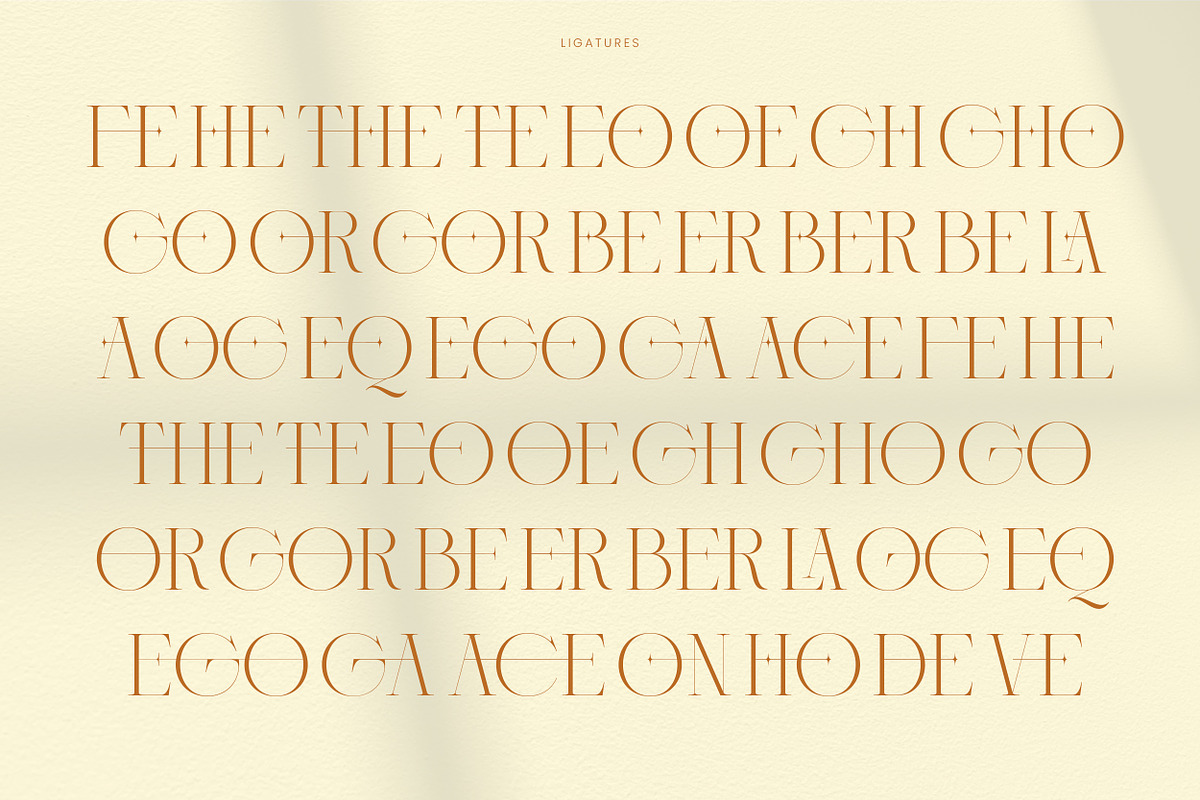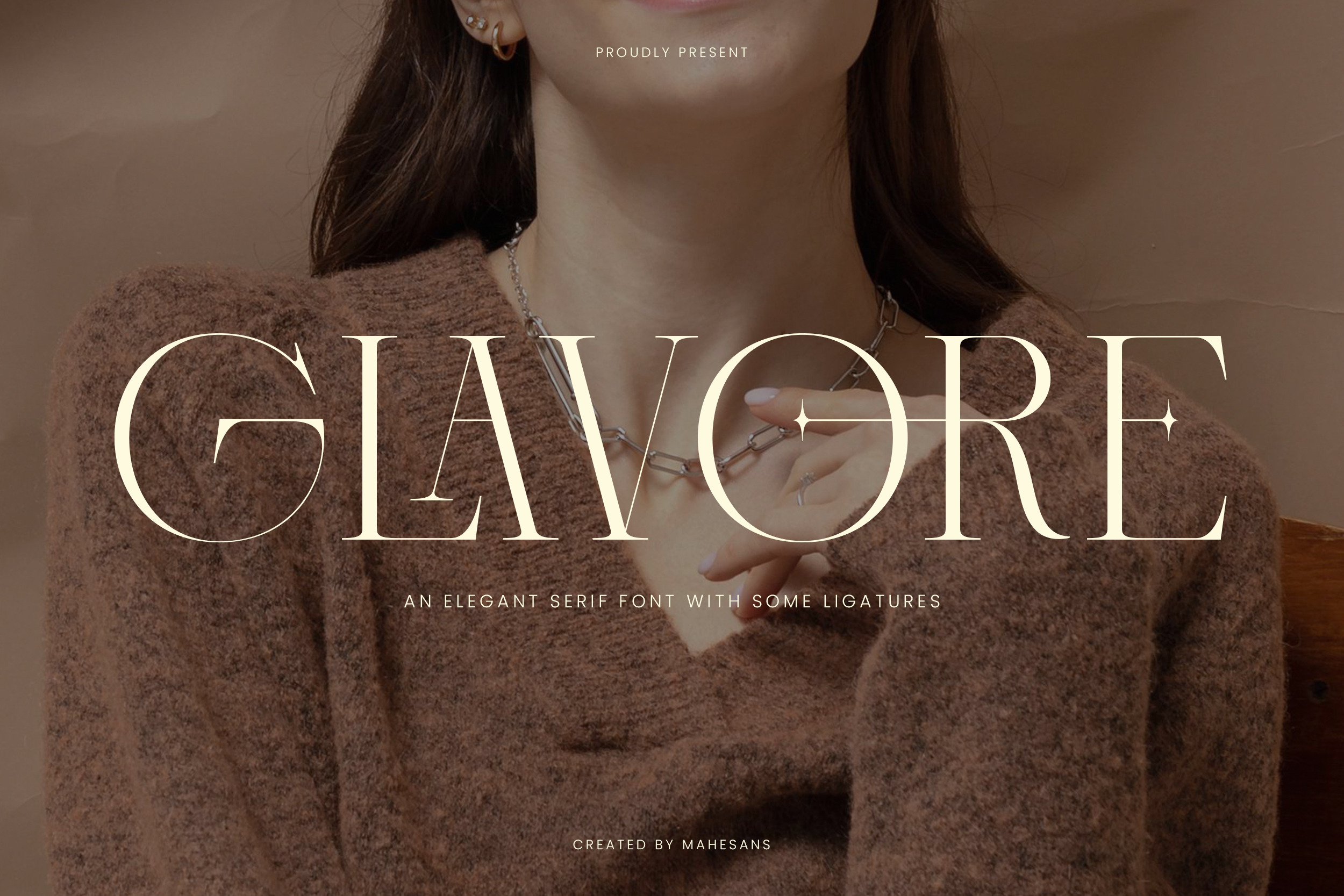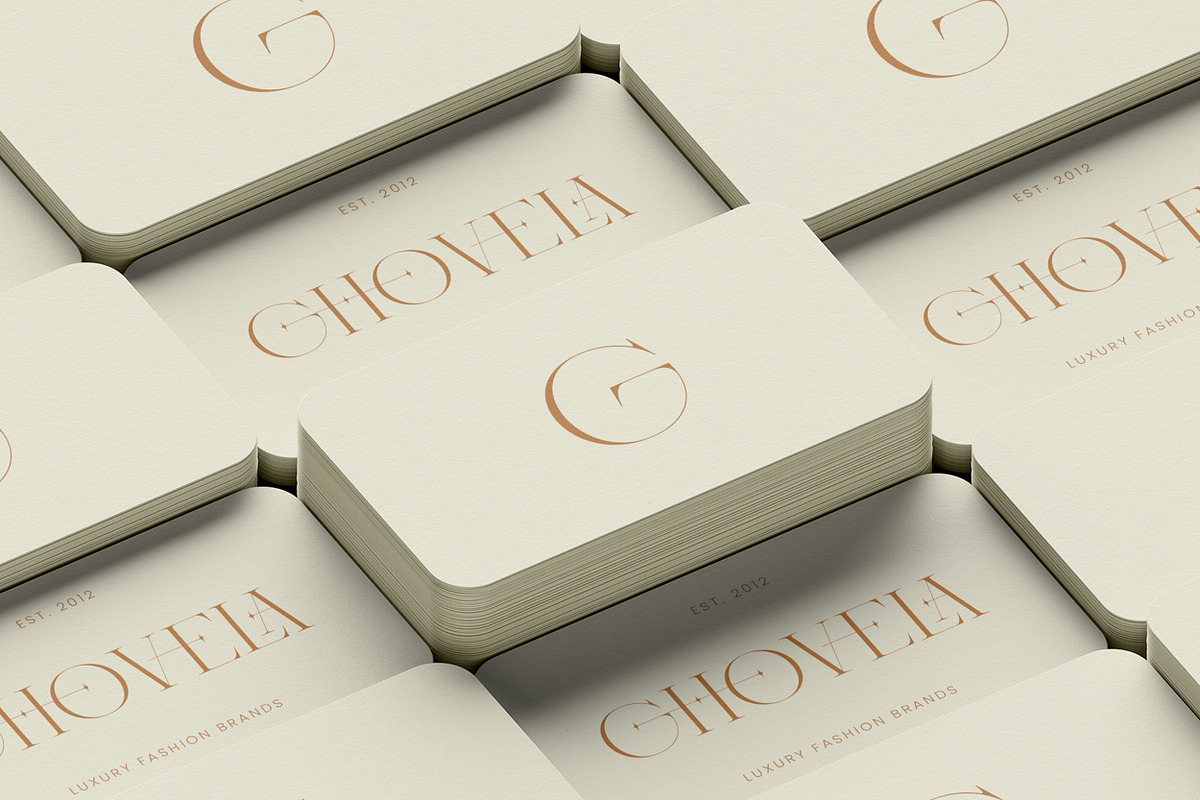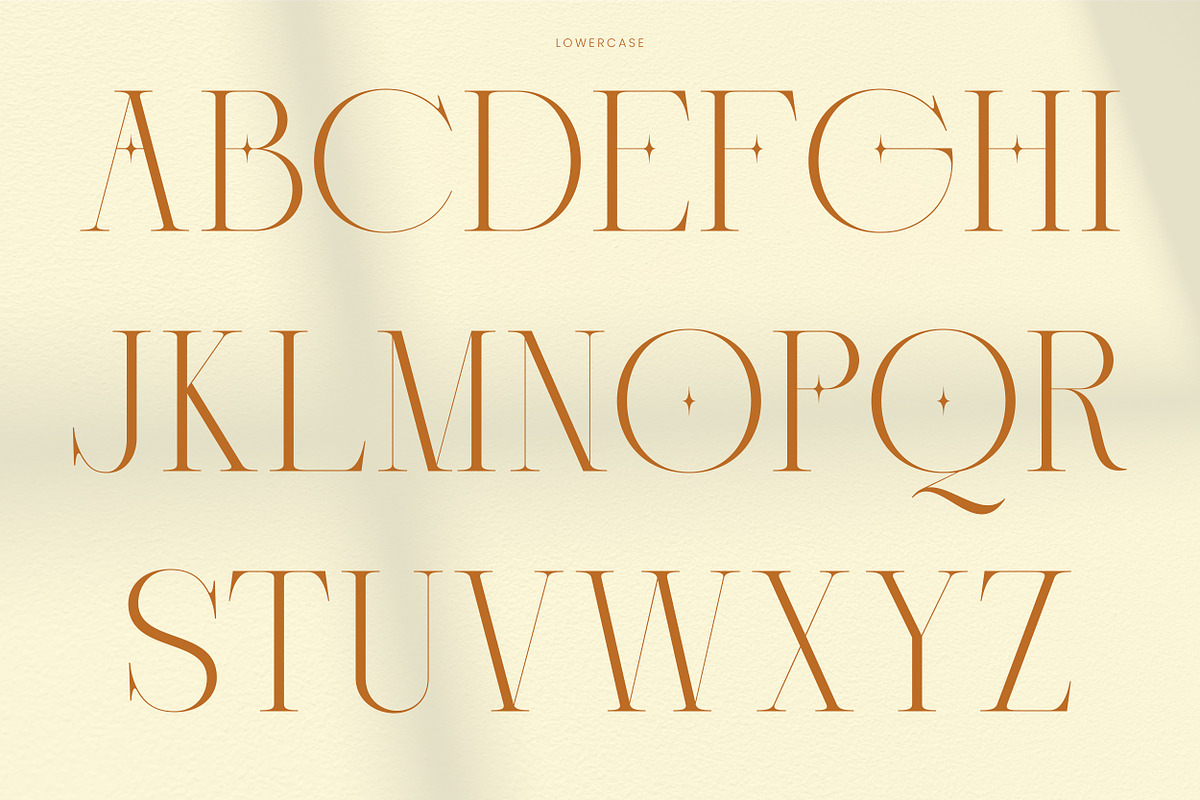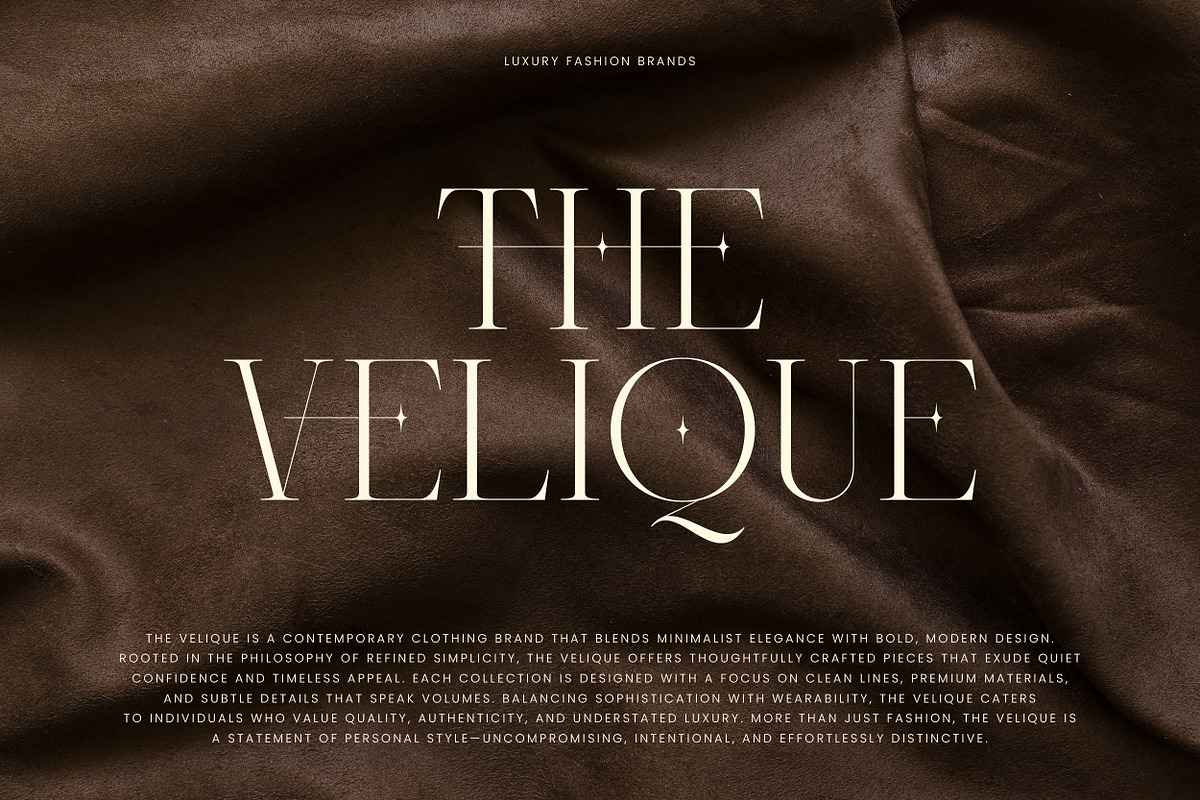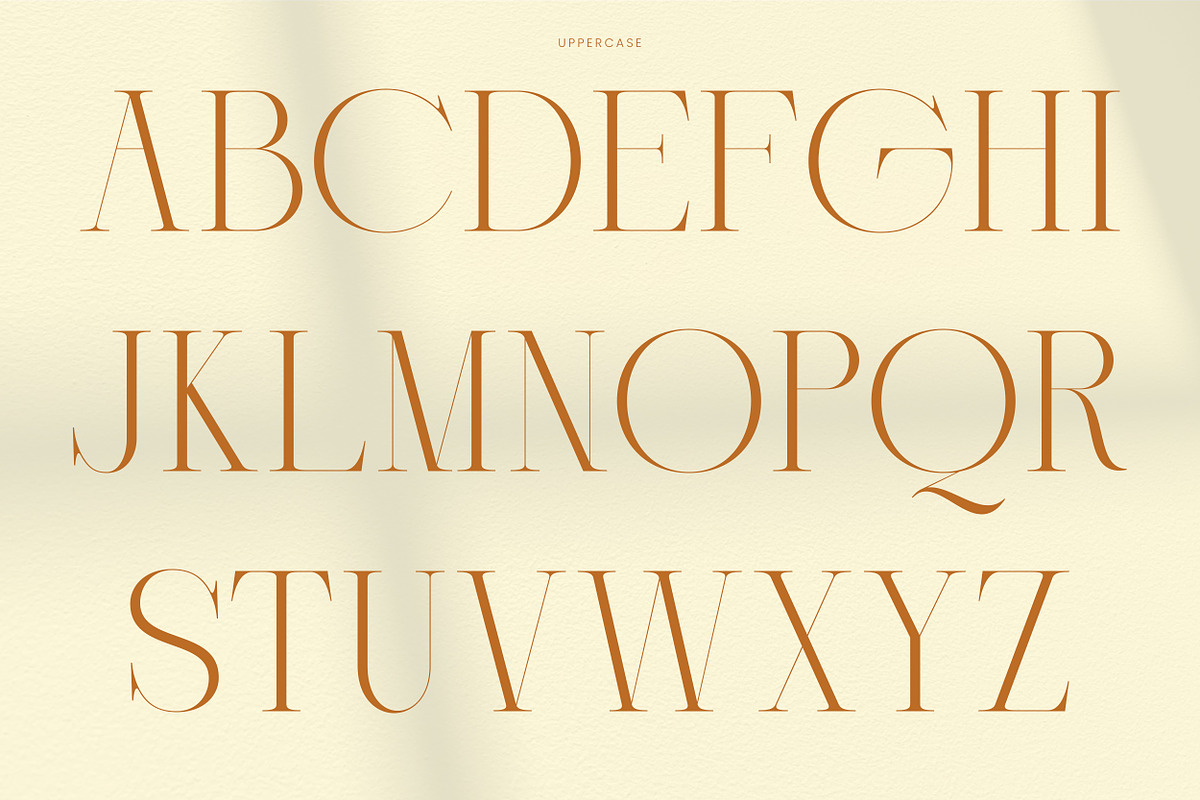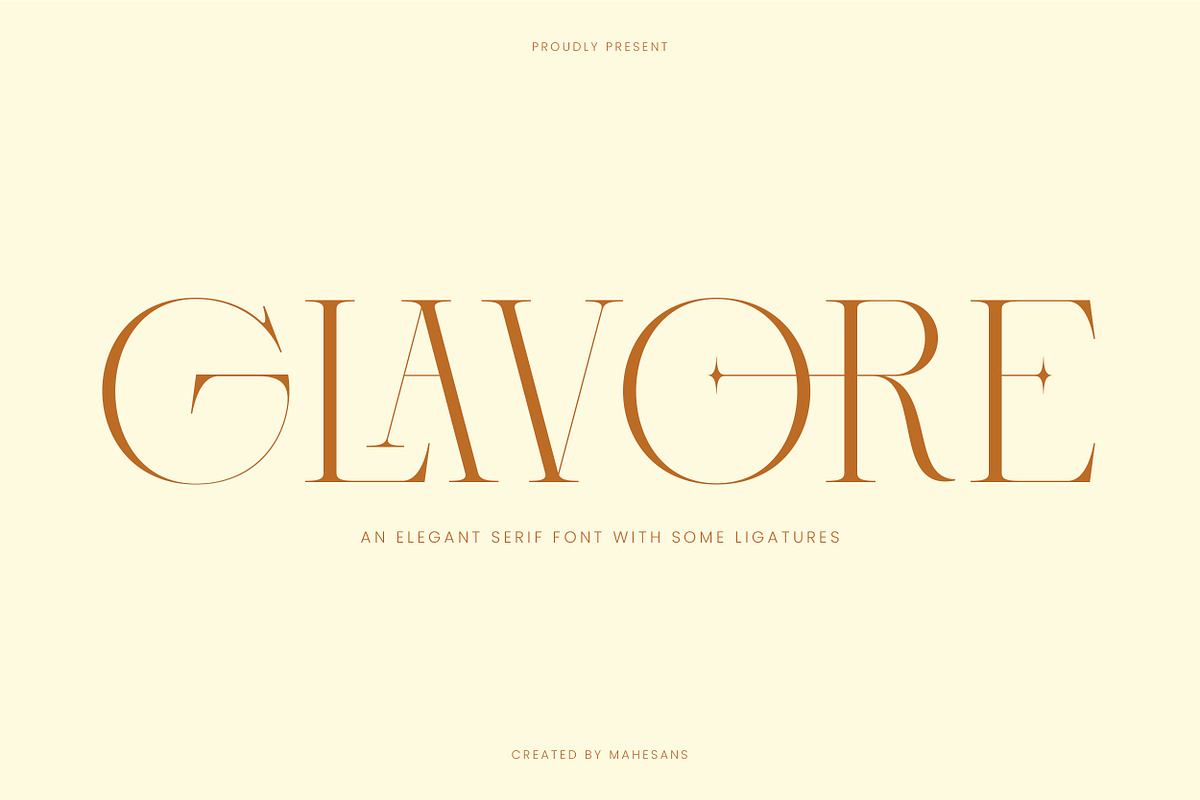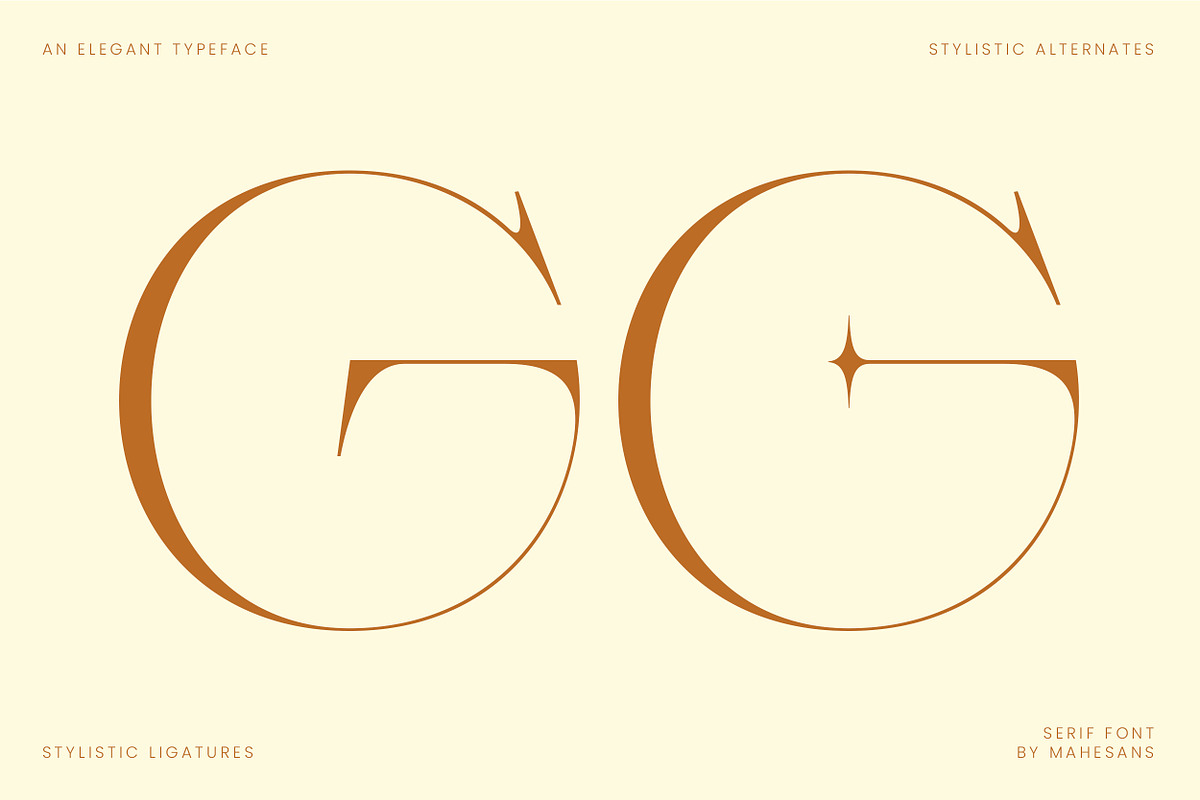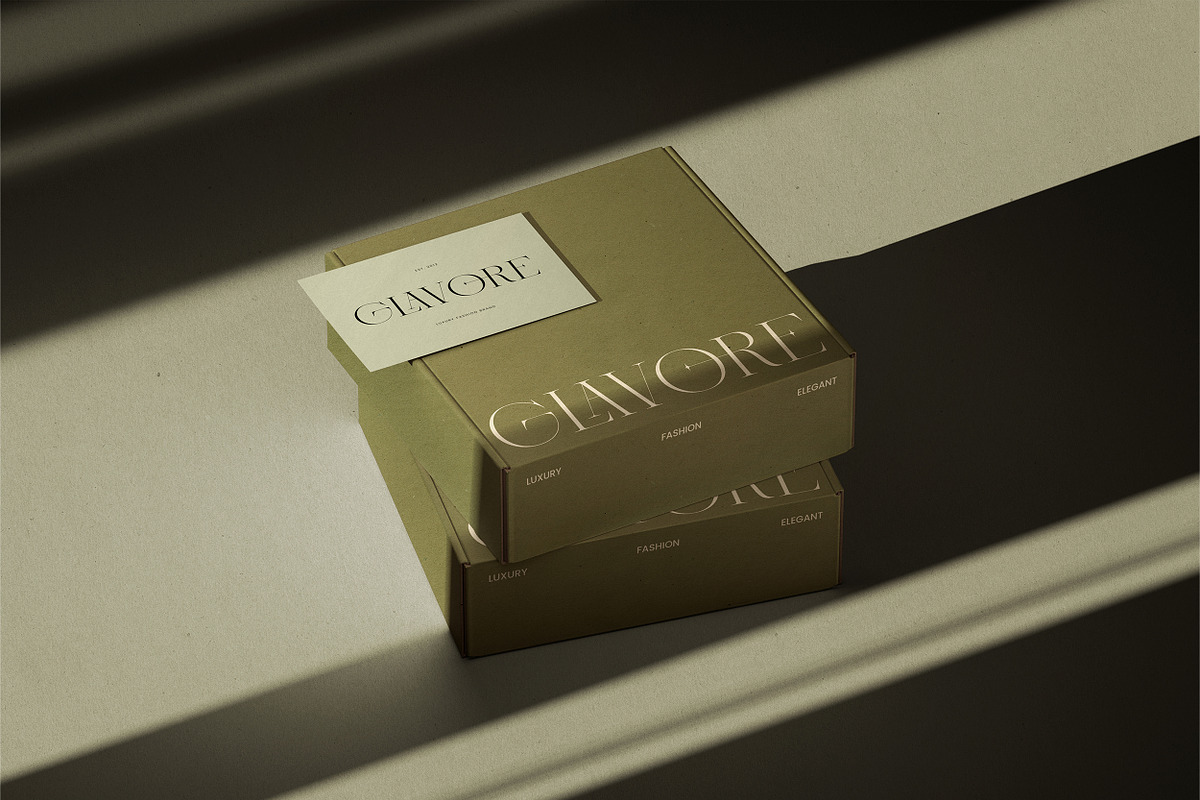
Glavore | Elegant Serif Font
Glavore is a refined serif typeface that captures the essence of timeless elegance and modern sophistication. With its high contrast strokes, graceful curves, and distinctive ligatures, Glavore is designed to elevate branding, editorial design, and fashion focused visuals. Inspired by luxury fashion aesthetics, this font blends classical serif traditions with contemporary flair making it ideal for logos, packaging, magazine headlines, and boutique identities. Each character is thoughtfully crafted with subtle artistic details, including star shaped diacritics and smooth alternates that bring a sense of uniqueness to every word. Whether set in uppercase for bold statements or used delicately in editorial layouts, Glavore evokes grace, confidence, and understated opulence. Perfect for brands that speak in elegance, this font doesn't just communicate it captivates.
- All caps & multilingual